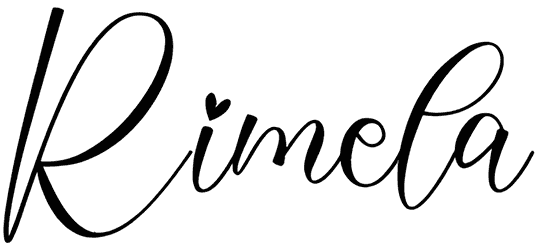
Rimela Font
Check out Rimela, a beautiful calligraphy font with an elegant, modern style. It has cute, flowing swashes that convey a lovely vibe to your work. It is not easy to read due to the cursive form of the characters. You can use this romantic font for wedding invitations, personalized gifts, greeting cards, branding projects, and romantic concepts.